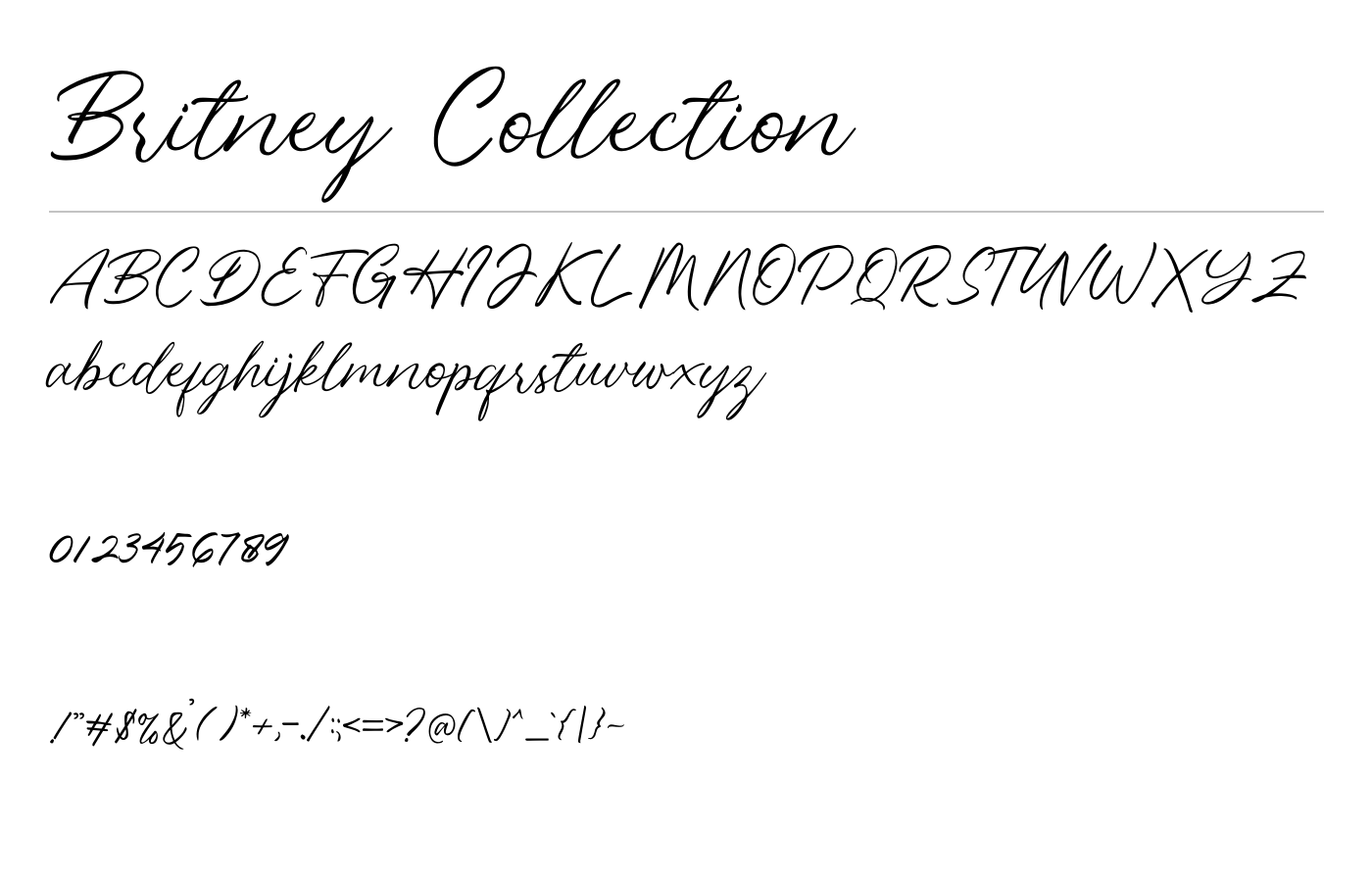
Britney Collection is a delicate, elegant script font with a light, flowing style that mimics natural handwriting. Its slender strokes and smooth curves give it a graceful and sophisticated feel, making it ideal for branding, invitations, and feminine or luxury designs where a personal, refined touch is desired. This font works beautifully in headlines or short text, bringing warmth and elegance to any creative project.
Britney Collection Font